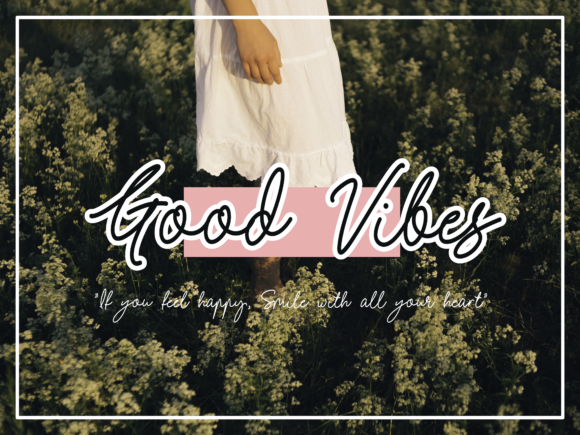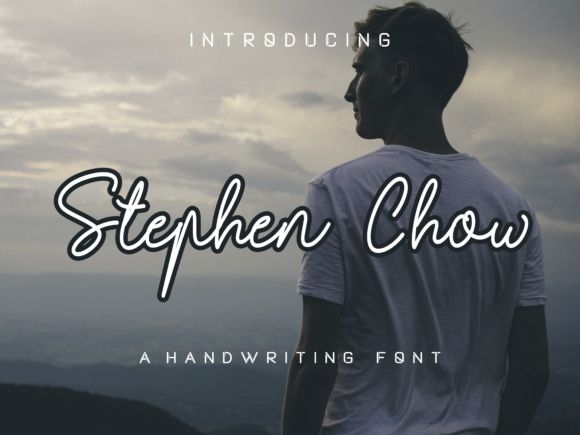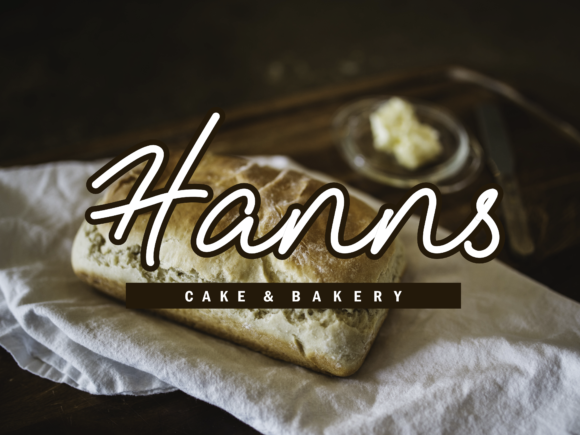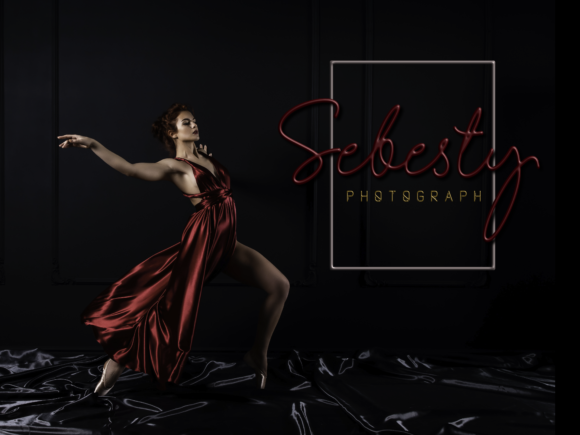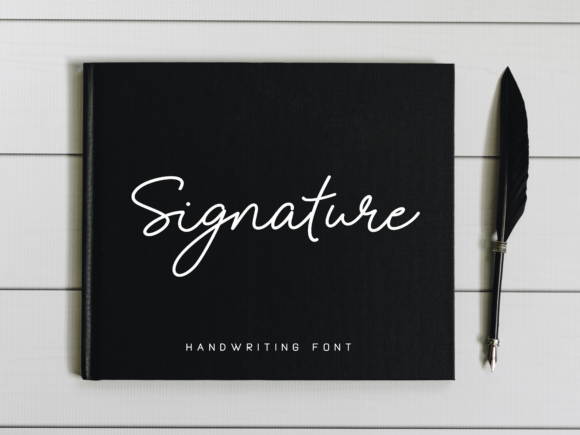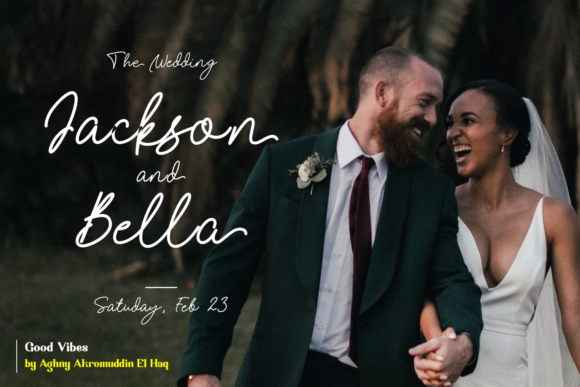
Introducing Good Vibes Font: Elevate Your Designs with Elegance and Flair
In the world of digital design, fonts play a pivotal role in conveying messages, evoking emotions, and creating lasting impressions. Among the myriad of fonts available, Good Vibes stands out as a beacon of elegance and sophistication. This article delves into the characteristics, benefits, and uses of the Good Vibes font, a stunning handwritten typeface that is PUA encoded for effortless access to its extensive glyphs and swashes.
What is Good Vibes Font?
Good Vibes is an elegant and flowing handwritten font that exudes a sense of luxury and refinement. Its fluid strokes and beautiful ligatures make it an ideal choice for designers looking to add a touch of sophistication to their projects. Whether you’re crafting a logo, creating a social media graphic, or designing a website, Good Vibes offers the versatility and charm to elevate your work.
The Power of PUA Encoding
One of the standout features of Good Vibes is its PUA (Private Use Area) encoding. This means that the font includes a wide range of glyphs and swashes that are easily accessible, allowing designers to experiment with various styles and combinations without the hassle of complicated editing. PUA encoding ensures that you can make the most of Good Vibes’ creative potential, making it a practical choice for both beginners and seasoned designers.
Key Features of Good Vibes Font
- Elegant and Flowing Design: Good Vibes boasts a beautiful, handwritten aesthetic that adds a touch of class to any design.
- PUA Encoded: Enjoy easy access to all glyphs and swashes, making it simple to customize and enhance your designs.
- Versatile: Suitable for a wide range of projects, from branding and advertising to digital media and crafting.
- User-Friendly: Designed to be accessible for designers of all skill levels, ensuring a smooth and enjoyable creative process.
Applications of Good Vibes Font
The versatility of Good Vibes makes it an excellent choice for various design applications. Here are some of the ways you can use this stunning font:
Branding and Logo Design
Good Vibes is perfect for creating memorable logos and brand identities. Its elegant style helps convey a sense of luxury and professionalism, making it ideal for businesses looking to establish a sophisticated image.
Digital Media and Social Content
Enhance your social media graphics, blog posts, and website content with the charming and refined look of Good Vibes. Its flowing script is sure to capture attention and leave a lasting impression on your audience.
Crafting and DIY Projects
Crafters and DIY enthusiasts will love using Good Vibes for their projects, such as handmade cards, party invitations, and personalized gifts. The font’s beautiful appearance adds a touch of elegance to any craft.
Tips for Using Good Vibes Font
To make the most of Good Vibes, consider the following tips:
- Experiment with Swashes: Take advantage of the font’s PUA encoding to explore different swashes and glyphs, adding unique touches to your designs.
- Mix and Match: Combine Good Vibes with other fonts to create striking contrasts and visually appealing typography.
- Pay Attention to Spacing: Adjust the spacing between letters and words to enhance the flow and readability of your text.
Good Vibes font is a remarkable addition to any designer’s toolkit. Its elegant and flowing handwritten style, combined with PUA encoding for easy access to glyphs and swashes, makes it an excellent choice for a wide range of projects. Whether you’re a professional designer or a crafting enthusiast, Good Vibes offers the perfect blend of style, versatility, and user-friendliness. Fall for its ravishing style and use it to create gorgeous designs that leave a lasting impression.
Embrace the good vibes and elevate your designs with this beautiful font. Discover the difference it can make in your creative projects and enjoy the process of bringing your ideas to life with elegance and flair.